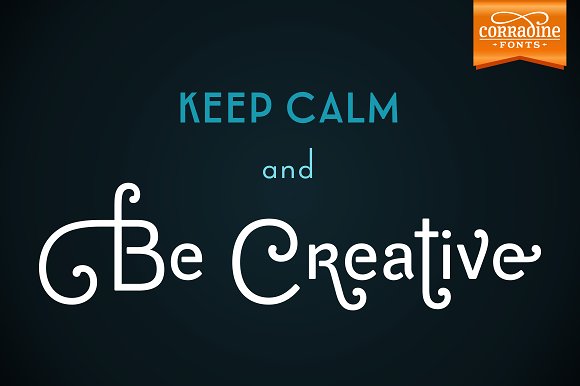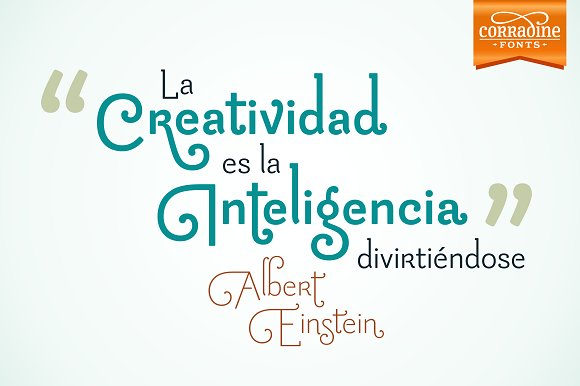
Introducing the Be Creative Family Font: Elevate Your Designs with Elegance
Are you a designer, crafty individual, or simply someone who appreciates the beauty of typography? Look no further than the Be Creative Family Font, an elegant typeface family designed to inspire creativity and sophistication in your projects. With its versatile range of styles and refined aesthetic, Be Creative is the perfect choice for those who strive to make a statement through their work.
The Essence of Be Creative Family Font
Be Creative is not just a font; it’s a comprehensive typeface family that embodies the spirit of innovation and artistic expression. This elegant font family is meticulously crafted to cater to a wide array of design needs, from branding and advertising to crafting and personal projects. Whether you’re working on a professional campaign or a personal endeavor, Be Creative offers the flexibility and style to bring your vision to life.
Key Features of Be Creative Family Font
- Elegant Design: Be Creative boasts a sleek and sophisticated design that adds a touch of elegance to any project. Its refined lines and curves make it perfect for designs that require a level of sophistication.
- Versatile Styles: The Be Creative Family Font comes in multiple styles, allowing designers to choose the perfect variation to match their project’s tone and theme. Whether you need a font for headings, body text, or captions, Be Creative has got you covered.
- High Readability: Despite its elegant appearance, Be Creative maintains high readability, making it suitable for both digital and print media. This ensures that your message is conveyed clearly and effectively to your audience.
- Wide Range of Applications: From professional branding and advertising to crafting and DIY projects, Be Creative’s versatility shines through. It’s ideal for use in logos, brochures, posters, websites, and much more.
Why Choose Be Creative Family Font?
Choosing Be Creative for your typography needs comes with numerous benefits. Here are a few reasons why designers and crafters alike are gravitating towards this elegant typeface family:
- Unique Aesthetic: Be Creative offers a unique aesthetic that sets it apart from more common fonts. Its distinctive style ensures that your designs stand out in a crowded marketplace.
- Time-Saving: With Be Creative’s versatility and range of styles, designers can save time by having all the typography needs for a project covered with a single font family.
- Support for Creative Projects: For crafters and DIY enthusiasts, Be Creative provides a professional touch to personal projects, making them look more polished and appealing.
| Font Name | Be Creative Family Font |
| Author | Corradine Fonts |
The Be Creative Family Font is a game-changer for designers and crafters looking to elevate their projects with a touch of elegance and sophistication. Its versatile styles, elegant design, and high readability make it an indispensable tool in any creative arsenal. Whether you’re working on a professional project or a personal craft, Be Creative is sure to inspire and enhance your work. So, why settle for ordinary when you can be creative? Embrace the elegance and versatility of Be Creative Family Font and watch your designs transform.